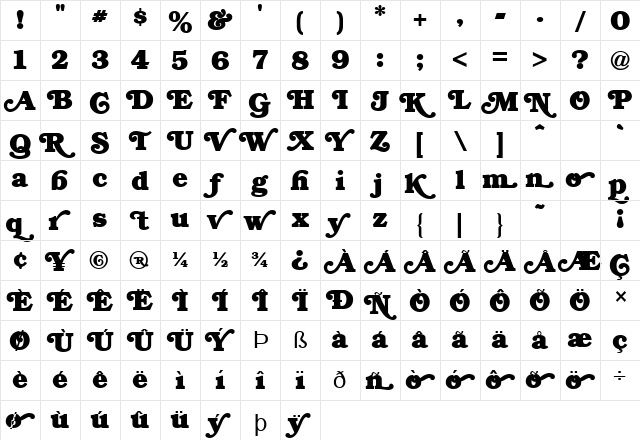
Swash Normal
Design Context for Swash Typeface
Swash brings a calligraphic fluidity to the page — its connecting strokes and expressive curves give it an unmistakably human quality.
Font Pairing: Combine Swash with a simple geometric sans for maximum contrast — the tension between flowing curves and clean structure is a classic typographic pairing.
Pro Tip: Use Swash for short runs of text — names, titles, or taglines. Extended body copy in script faces tires the eye quickly.